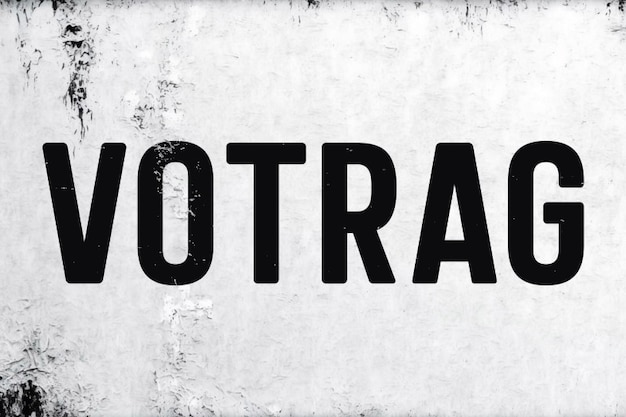
Votrag Font
Putracetol
Votrag is a basic, simple font with a subtle textured finish that adds depth and character. Its clean lines and straightforward design make it highly versatile, ideal for both minimalist and bold projects. Perfect for branding, posters, or modern designs, Votrag combines simplicity with just the right amount of tactile detail for a unique, stylish look.